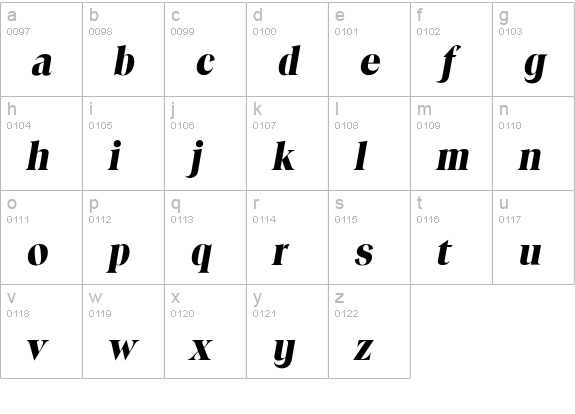
Introducing Toledo-BoldIta font, a captivating and stylish typeface that is sure to elevate your designs to new heights. Its sleek and modern design features bold and italic characteristics that exude confidence and sophistication. Toledo-BoldIta is the perfect choice for those seeking a unique and eye-catching font that stands out from the crowd. Whether you're designing a logo, creating striking headings, or crafting attention-grabbing posters, this font is guaranteed to leave a lasting impression. What sets Toledo-BoldIta apart is not only its stunning aesthetics but also its versatility. It effortlessly adapts to various design projects, making it suitable for both print and digital media. Its legibility remains intact even at smaller sizes, ensuring your message is conveyed with clarity and impact. And the best part? Toledo-BoldIta is available for free download at FontsMarket.com. That's right, you can access this remarkable font without spending a dime. FontsMarket.com offers a wide range of high-quality fonts, and Toledo-BoldIta is just one of the many treasures waiting to be discovered. So why wait? Unleash your creativity and elevate your designs with Toledo-BoldIta. Download this captivating font today and experience the limitless possibilities it brings to your projects.